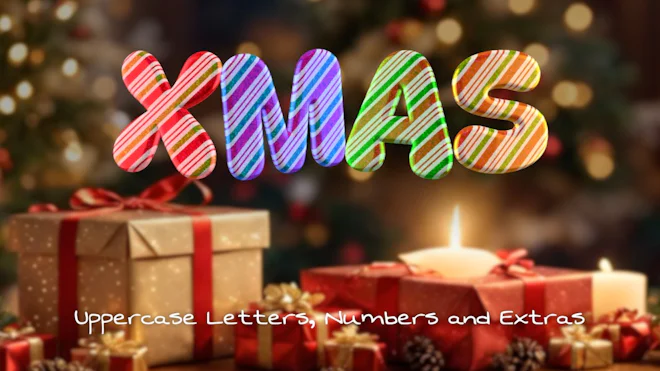
Pack Of 41 Hanging Candy Cane Uppercase Typefaces And Elements On Alpha Loop
This stock motion graphics video pack includes 41 hanging candy cane uppercase letters, numbers, and elements on a transparent alpha channel in a seamless loop.